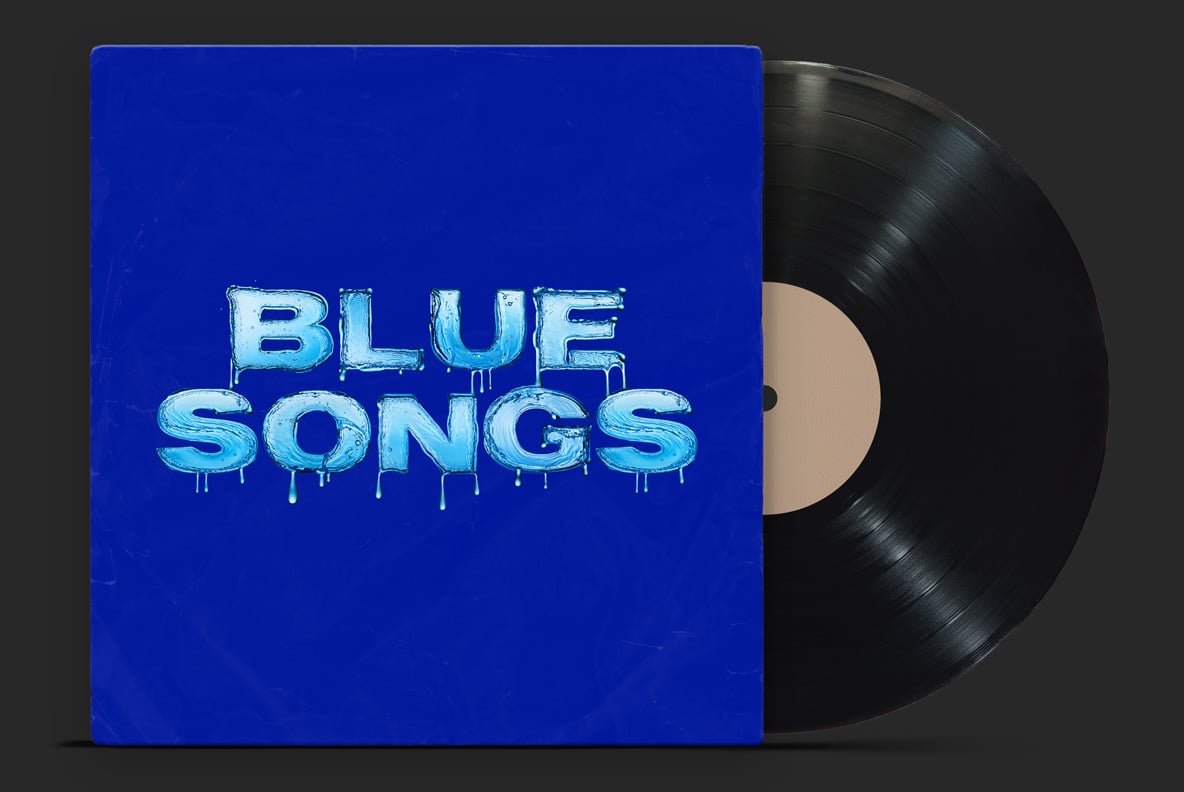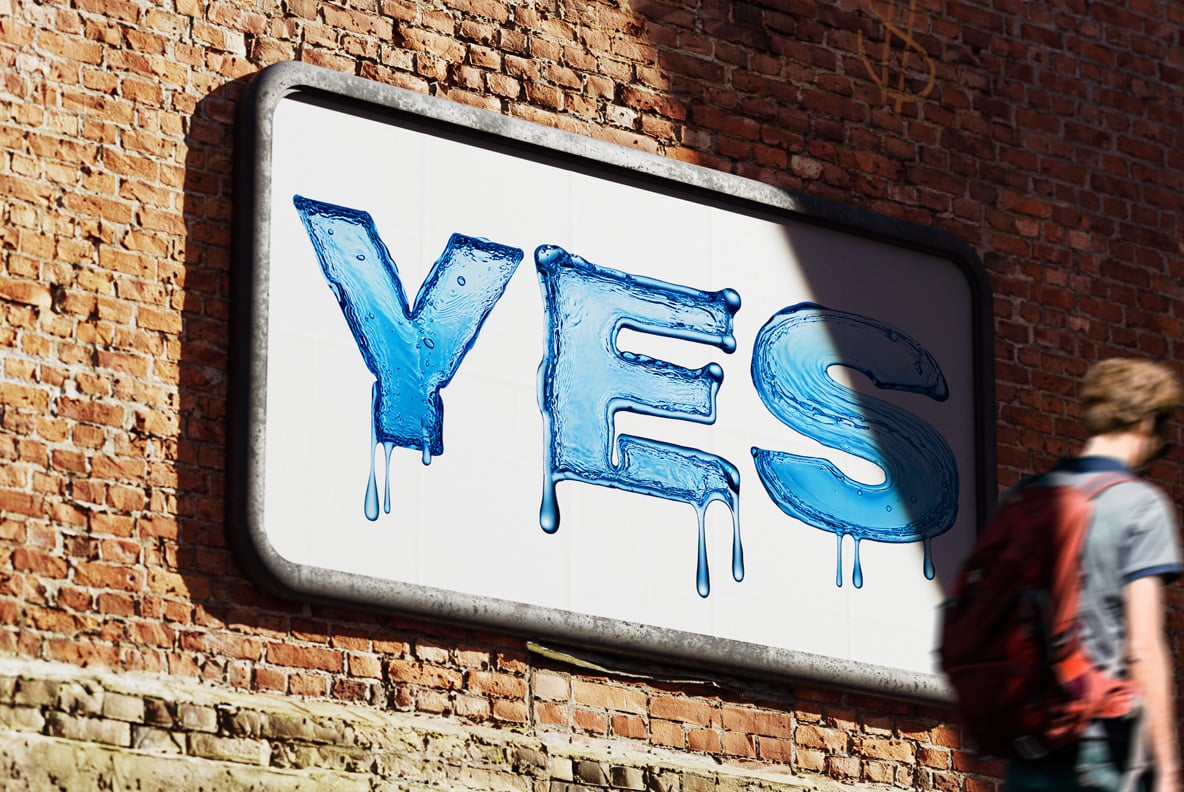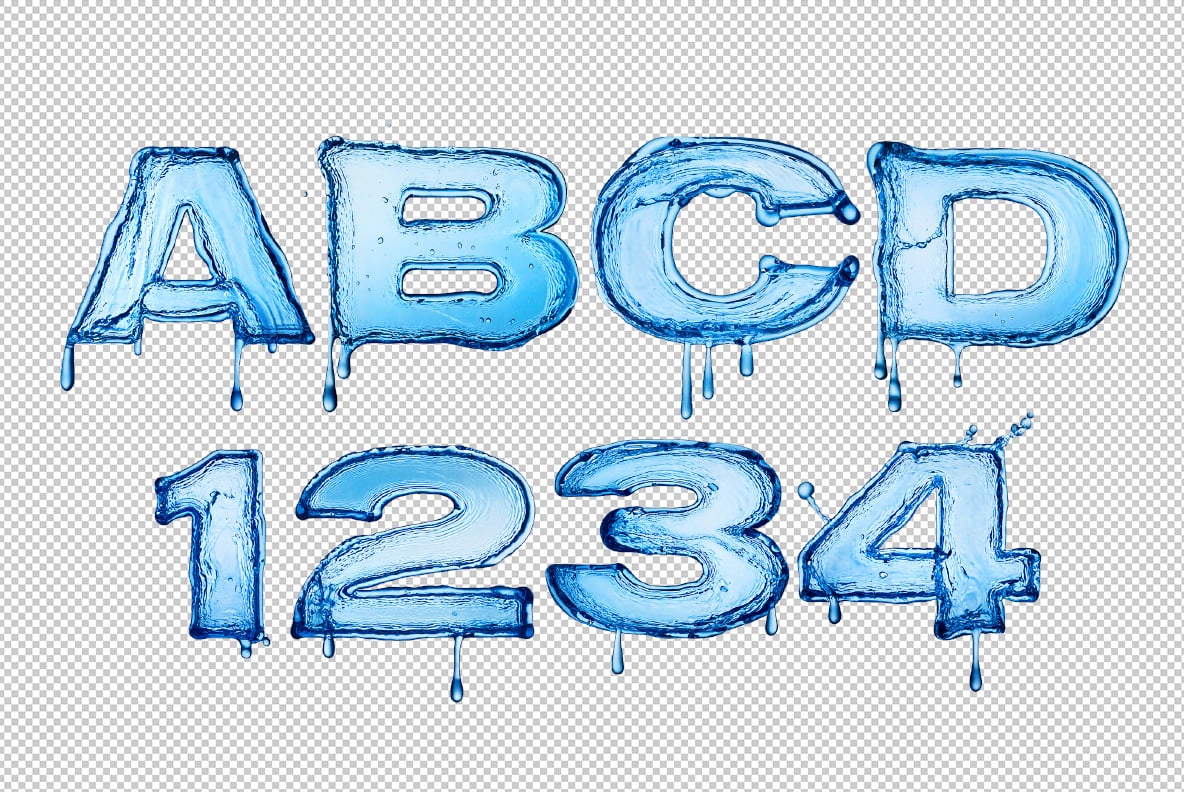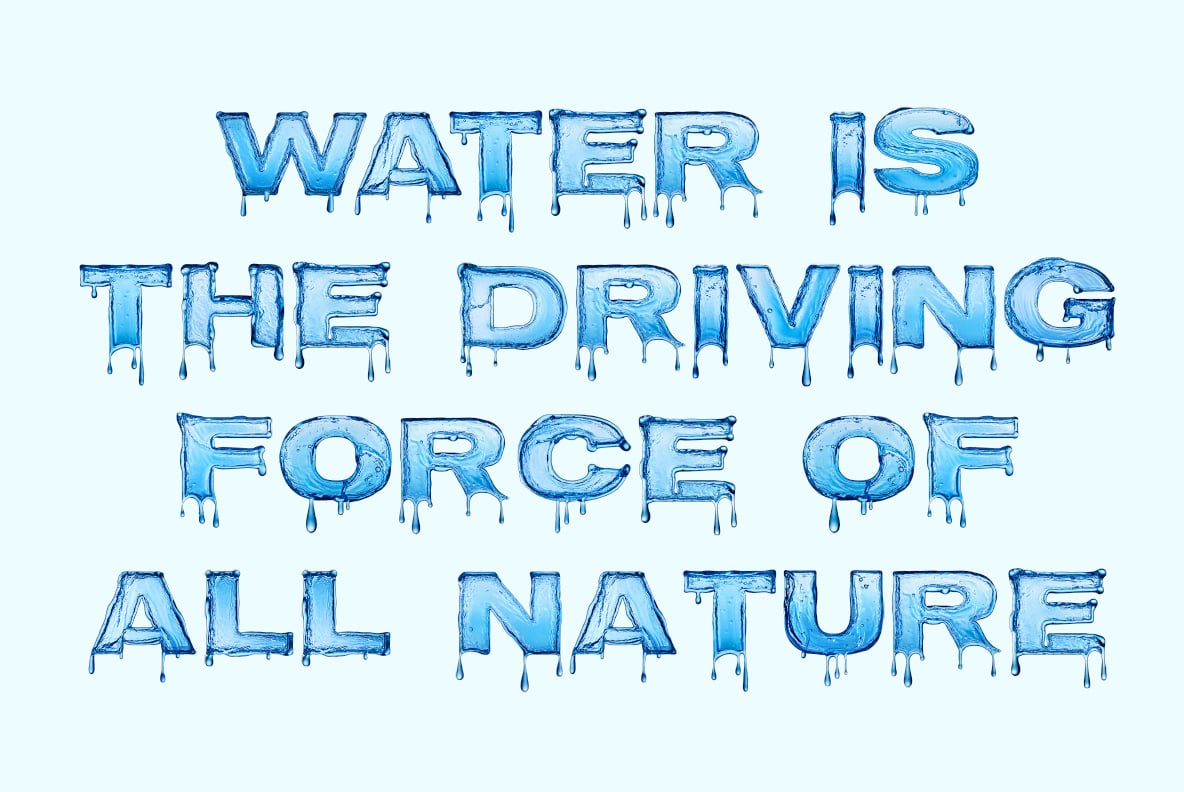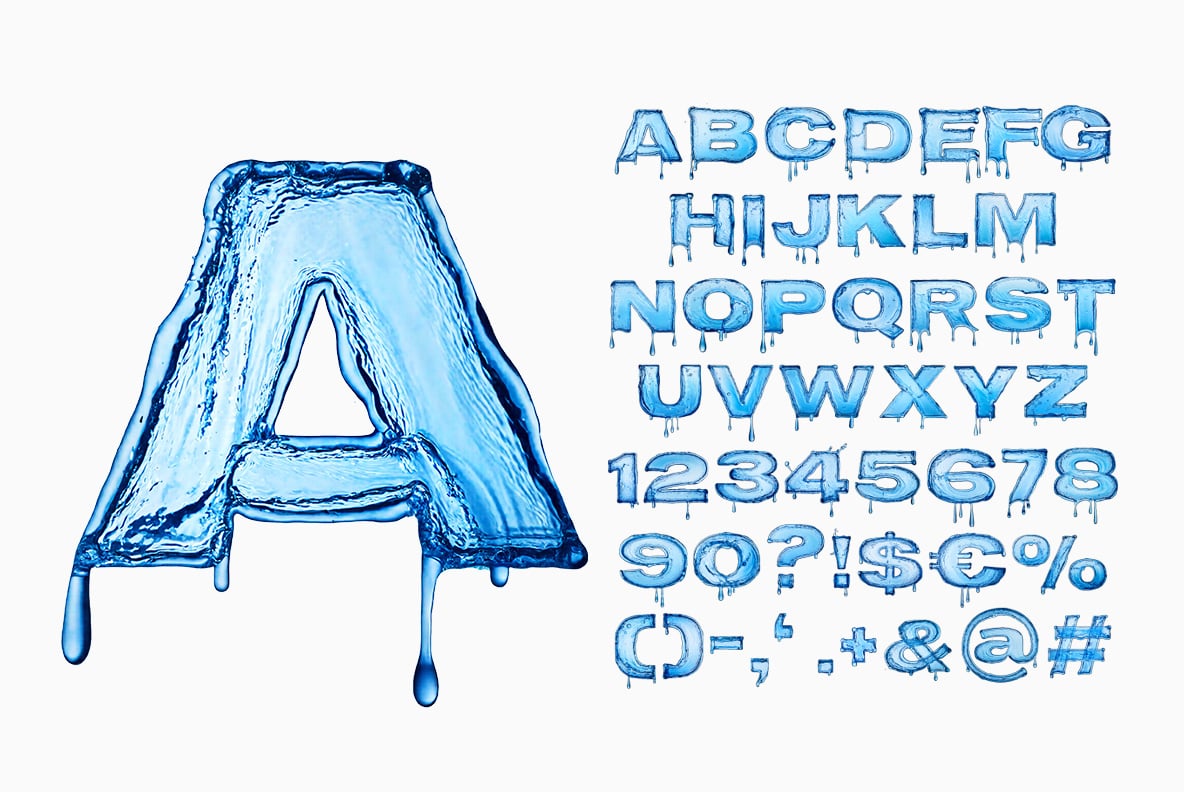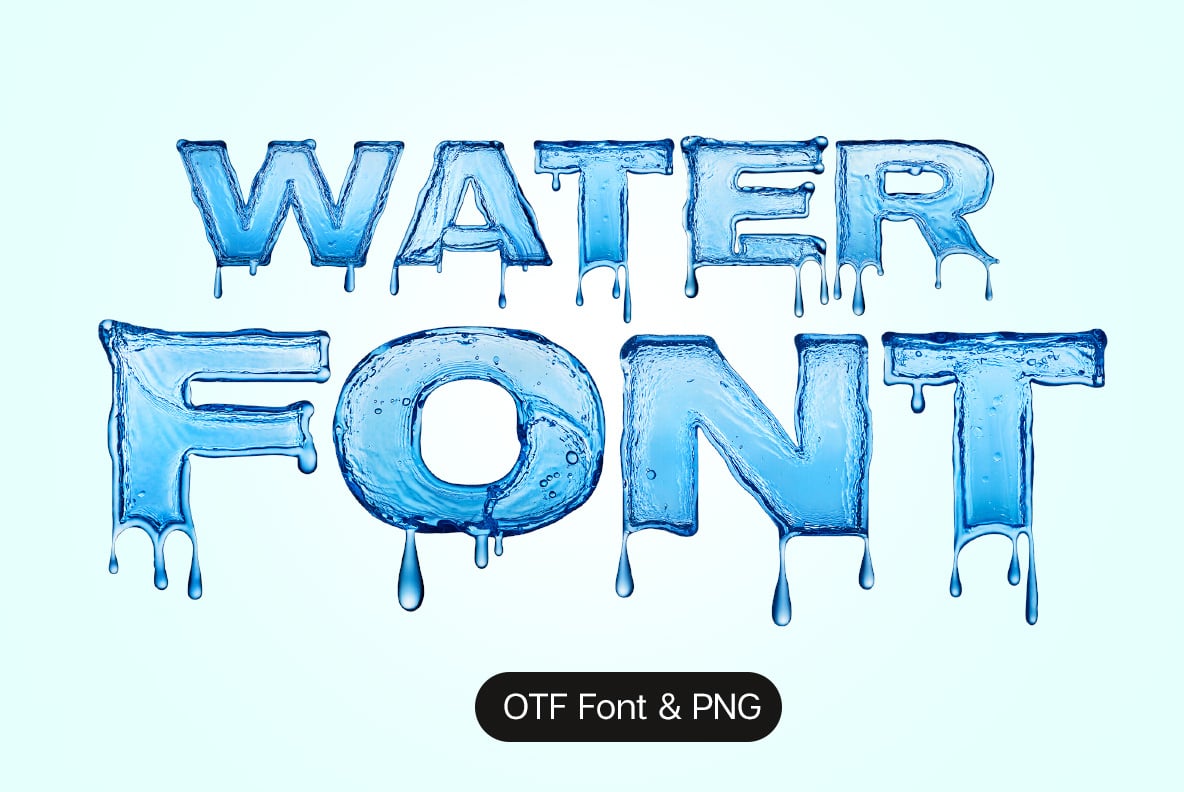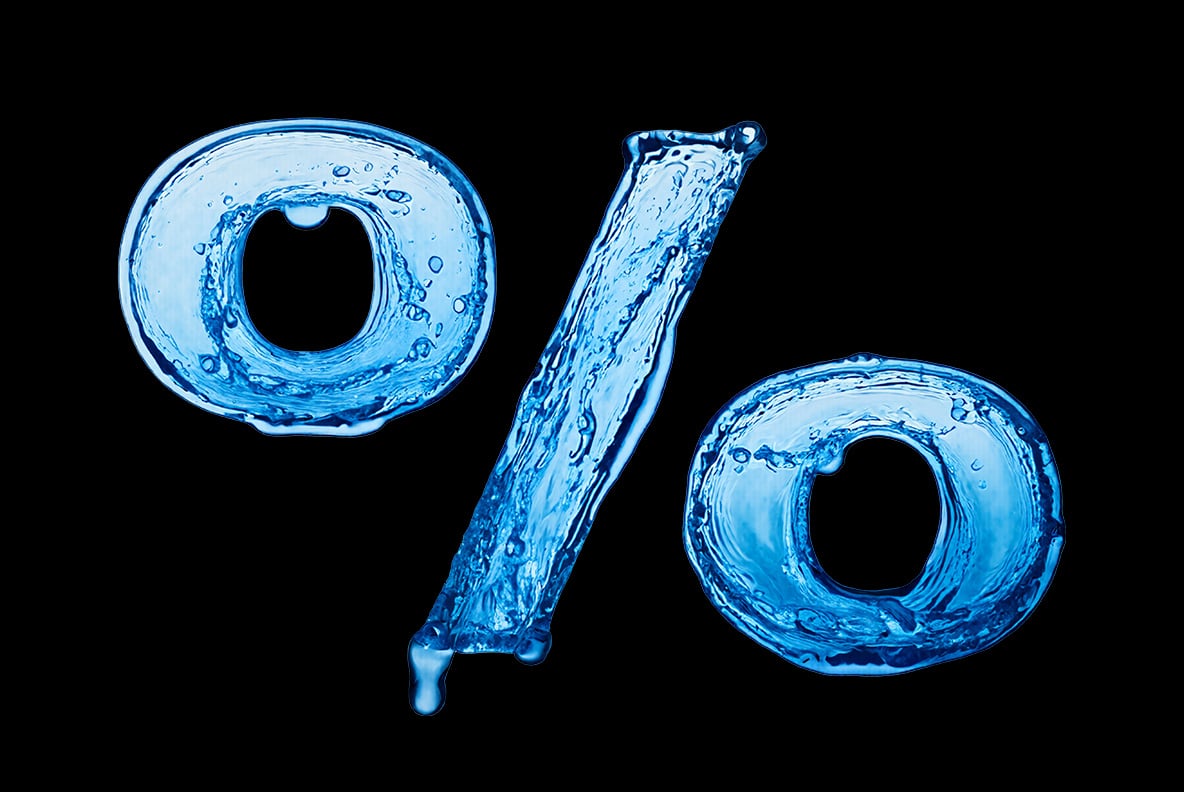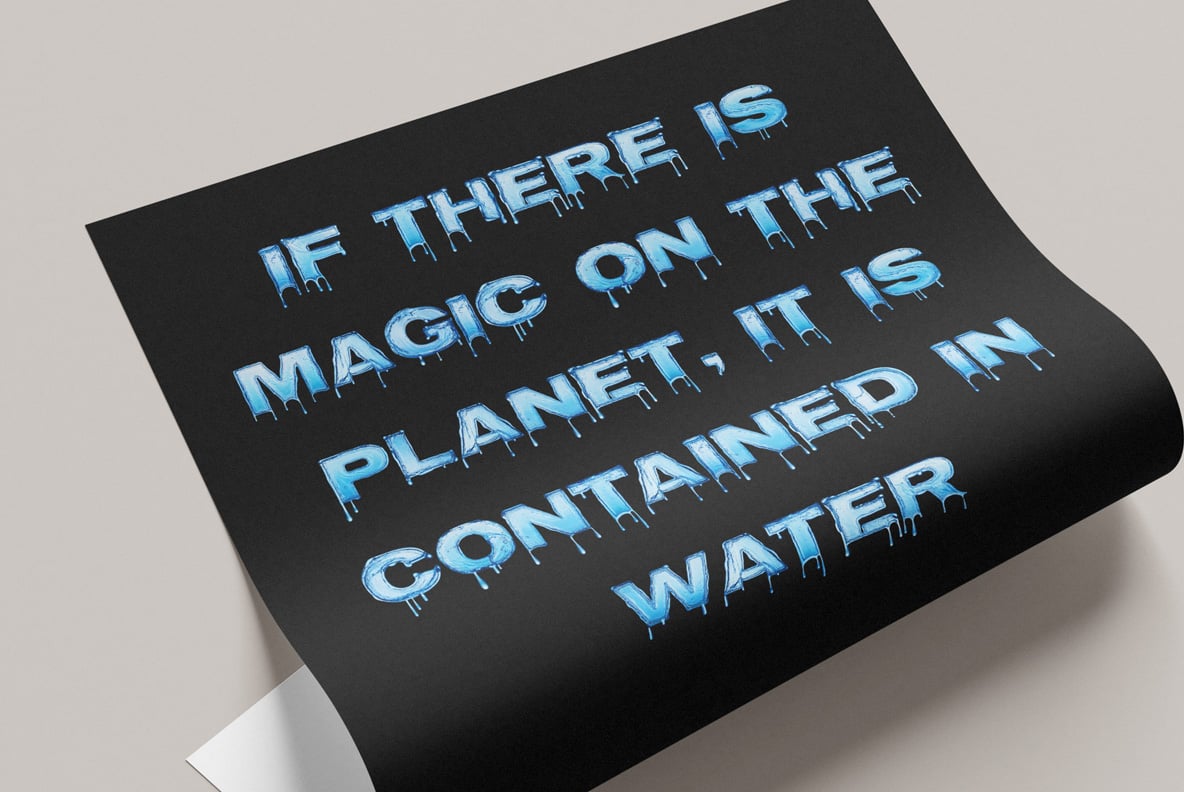
Water Font
Water Font flows with the essence of crystal-clear water, forming each letter in liquid clarity. This refreshing alphabet captures the fluidity of water, with each character sculpted to reflect the dynamic beauty of liquid. Perfect for designs needing a splash of freshness, this font adds a unique, transparent elegance to any visual project.
A high definition OpenType Font. Contains uppercase characters, numerals and basic punctuation. (Draw height roughly 800 pixels). All letters and glyphs that comprises this font you can see on the preview.
Others : ! ? - . ' $ € % @ &